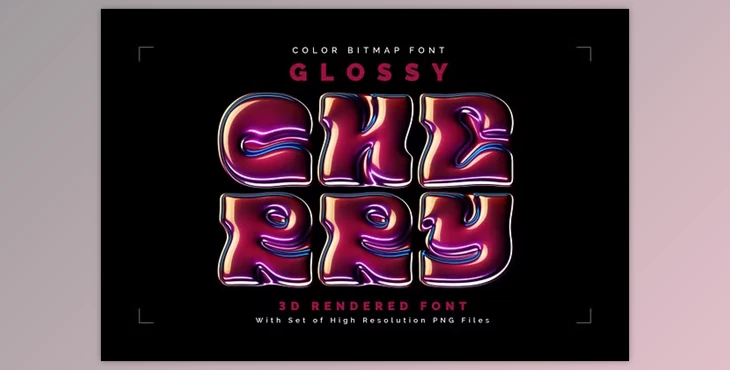
Glossy Cherry - Color Bitmap Font - 196288236:
Glossy Cherry is a creative 3D-rendered font set designed to resemble smooth, colorful cherry berries. It features a high-quality, color bitmap OpenType-SVG format that can be used like a standard OTF font. Additionally, the set includes full-resolution PNG files with transparent backgrounds, averaging 12 megapixels per image.